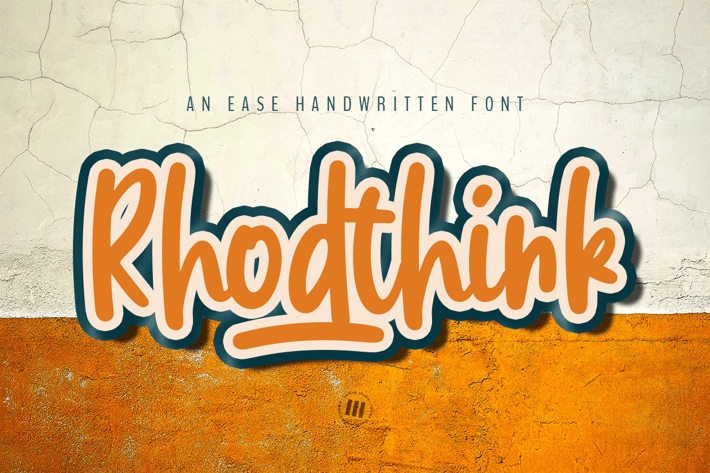
Rhodthink - A Easy Display Font
Rhodthink is an easy display font that is suitable for design projects; logo, branding, poster, quotes, gorgeous wedding invitations, beautiful stationary art, eye-catching social media posts, and cute greeting cards, and any other designs.
Full upper + lowercase characters
Numbers + punctuation
Some ligatures and swashes